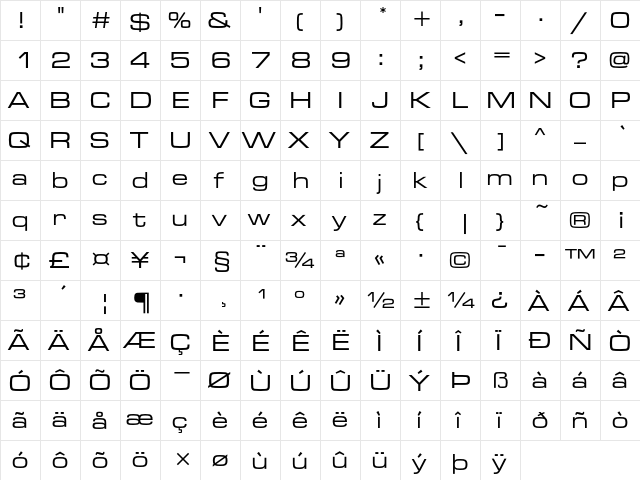
Microgramma D Medium Extended Font Preview
Microgramma D Medium Extended
Design Context for Microgramma D Typeface
Microgramma D takes a measured approach to typography — its balanced proportions and neutral character make it a reliable workhorse for both digital and print work.